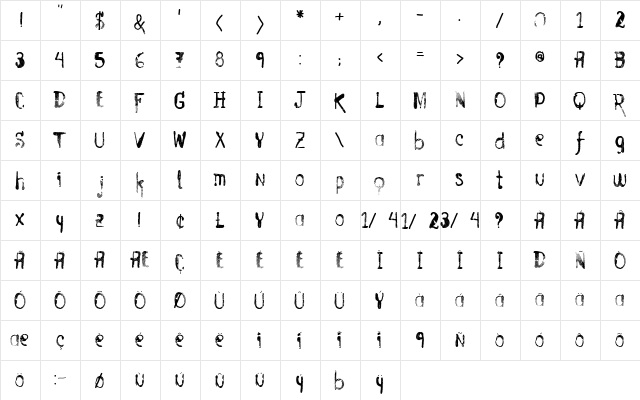
Vtks Entulho Regular Font Preview
Vtks Entulho Regular
Vtks Entulho Regular Font Details
| Foundry | douglas vitkauskas |
| Designer | DOUGLAS VITKAUSKAS |
Design Context for Vtks Entulho Typeface
Vtks Entulho is a composed and adaptable typeface that performs quietly and consistently across a wide range of design contexts.